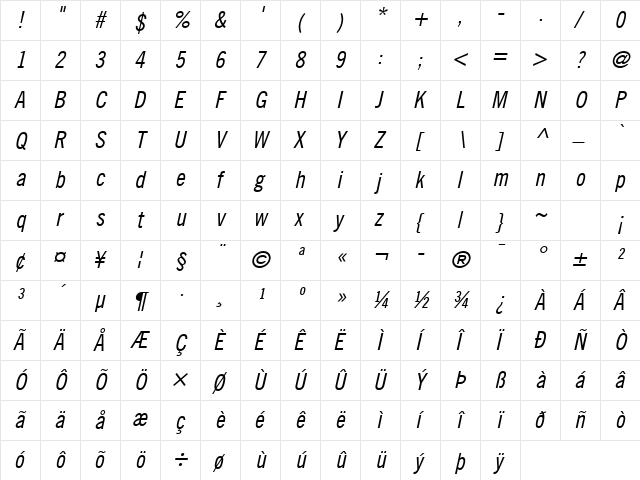
Trade Gothic LT Com Condensed No. 18 Oblique Font Preview
| Foundry | Linotype GmbH |
| Designer | Jackson Burke |
Design Context for Trade Gothic LT Com Typeface
Trade Gothic LT Com has the quiet confidence of well-executed sans-serif typography: versatile, unobtrusive, and dependable at any size. Its italic angle brings a sense of urgency and motion to the letterforms. The delicate stroke weight brings airiness and refinement to layouts. The condensed width makes it efficient for tight spaces without sacrificing legibility.
Ideal for fashion and beauty branding, minimal editorial layouts, and premium digital experiences.
Font Pairing: Pair Trade Gothic LT Com with a medium or bold serif for headlines — the weight contrast creates an elegant, high-end feel.
Pro Tip: Try Trade Gothic LT Com in all-caps with moderate tracking for navigation and label copy — it performs well in systematic UI contexts.